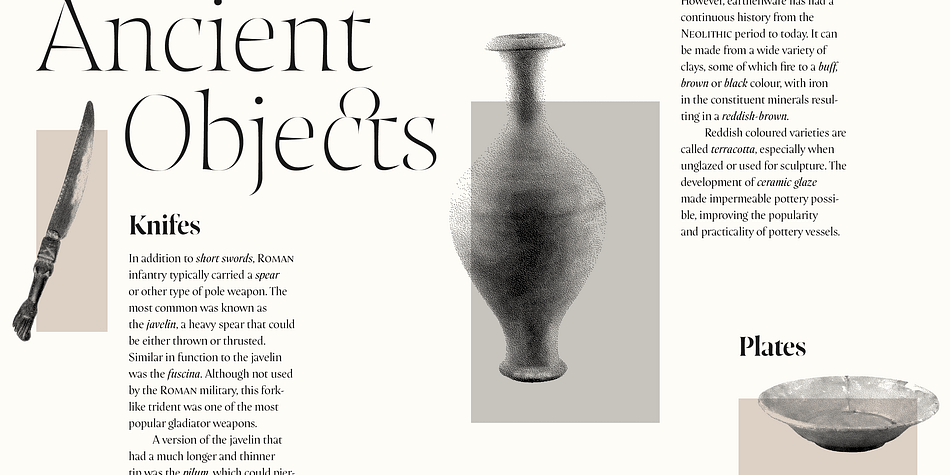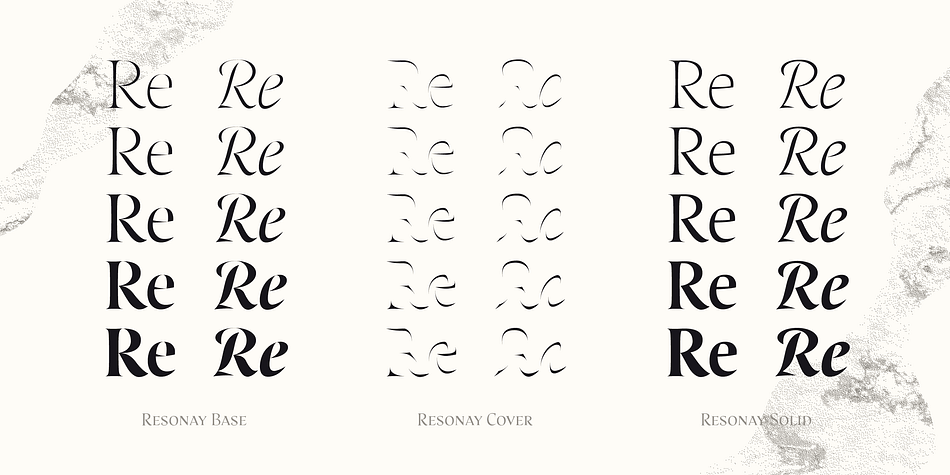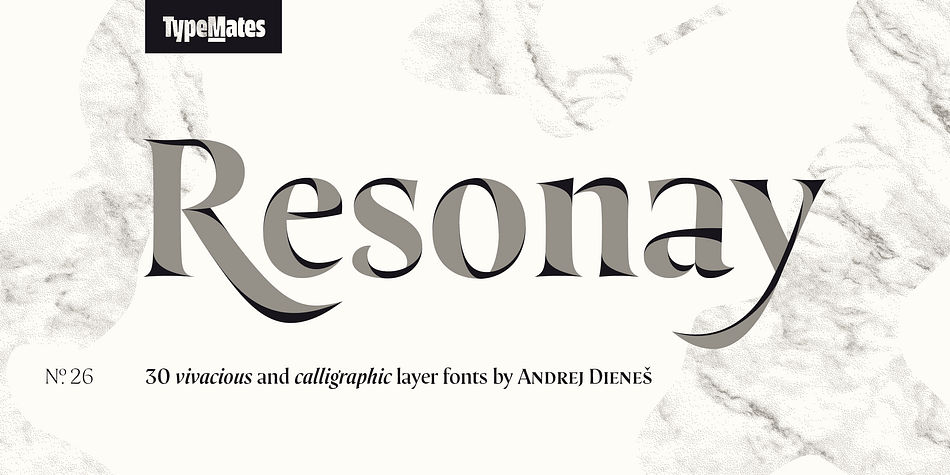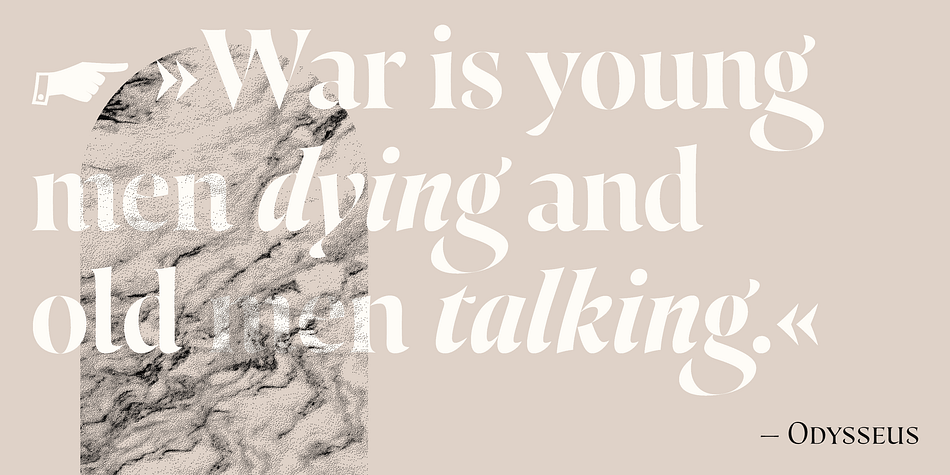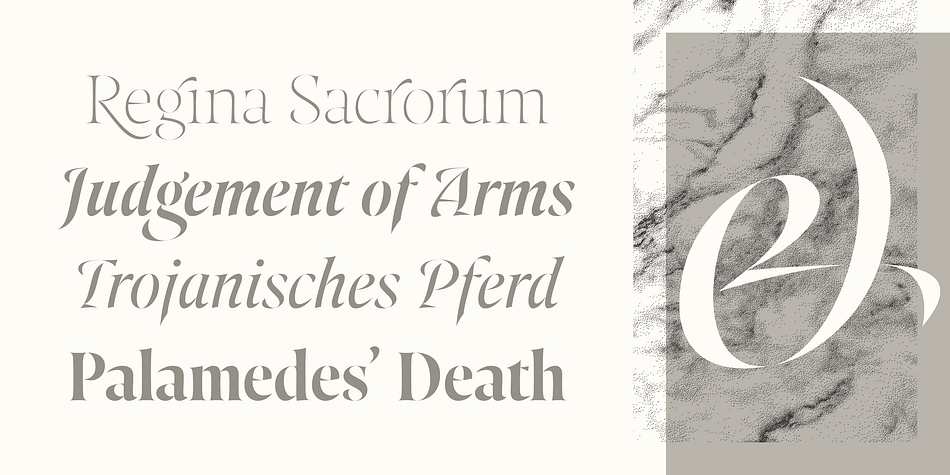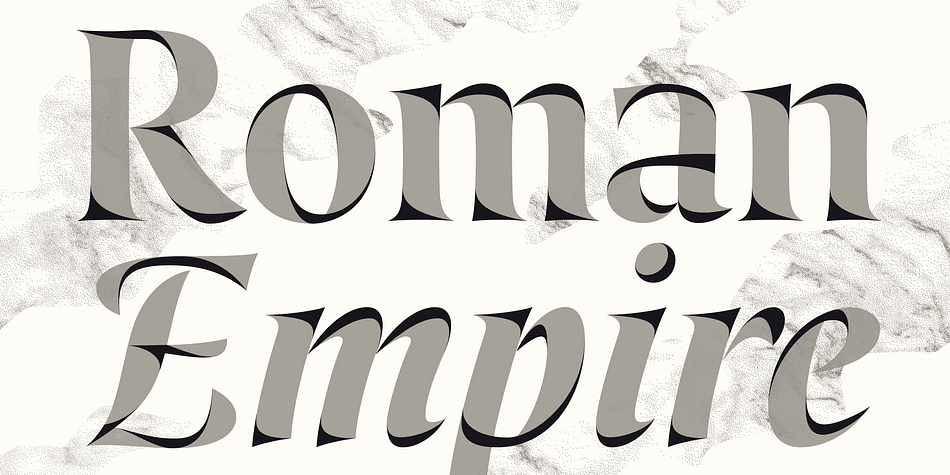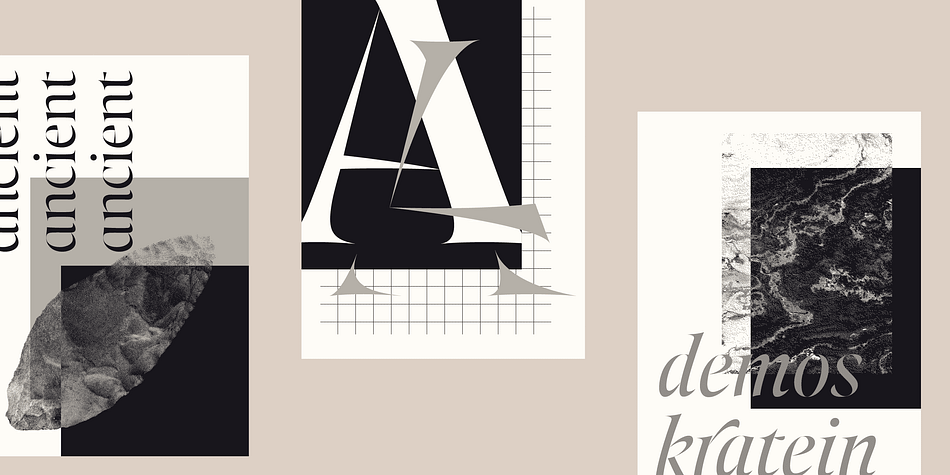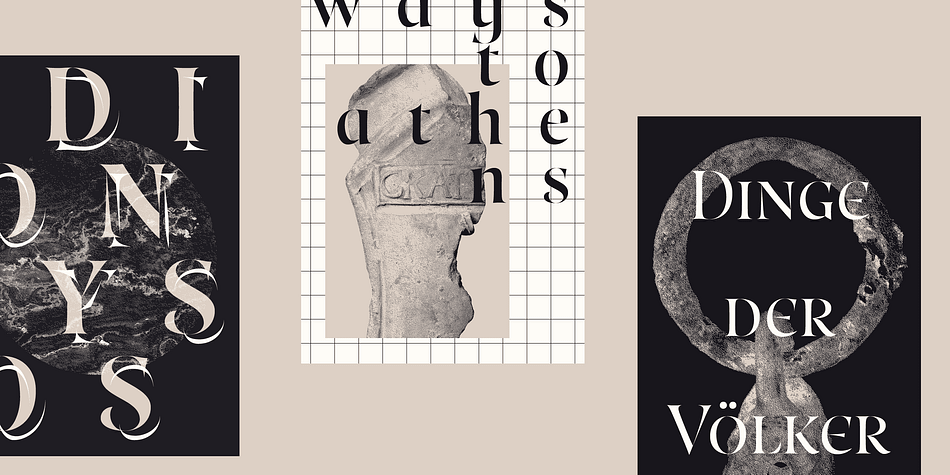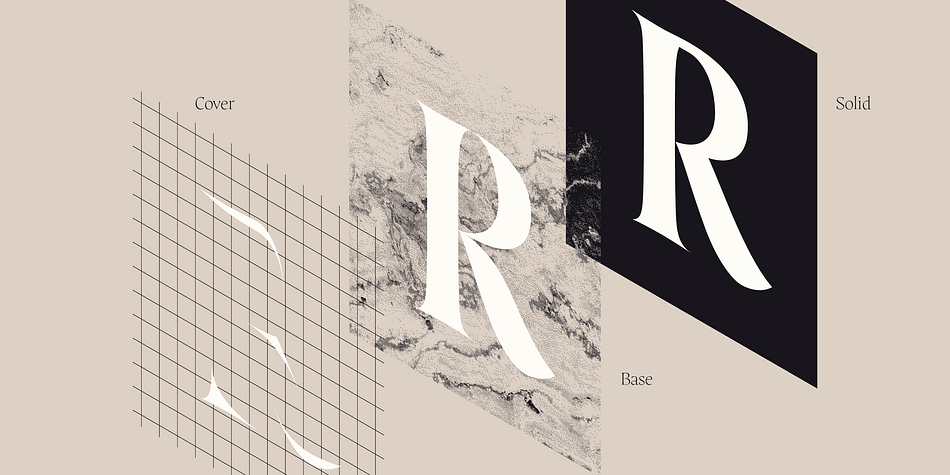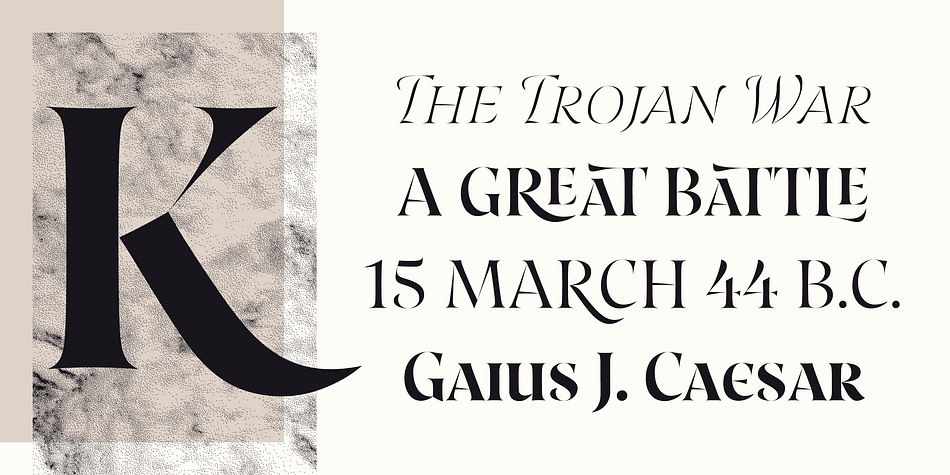
Resonay is a display serif font family. This typeface has thirty styles and was published by TypeMates.
Resonay’s a vivacious layer font that takes classical lettering somewhere new. Combining elegant details from stone carving with the flow of calligraphy, a sharp attitude with exuberant bézier curves, Resonay is suitable for logotypes and refined display setting. Enriched with swashes, titling alternates and a broad range of decorative ligatures, Resonay brings expression and poetry to headlines.
Attentive to setting titles in a classical fashion, Resonay has wide small caps and a set of nested capitals. For other typefaces, 200 lowercase ligatures may be enough, but with handsome initial and final swashes for its upper and lowercase letters, Resonay goes further. The uppercase italic is swashy by default.
Resonay is a layer font. Start with Resonay Base and overlay Resonay Cover to play with colour, opacity and gradients. Alternatively, for smaller sizes or a robust texture, Resonay Solid combines the two layers into one. As all three layers are perfectly synchronised, you can combine and recombine them to emphasise different facets of your text.
A fully-featured display font, Resonay has all the OpenType features you need for ambitious typography. As well as a variety of figure styles, there are small caps and capitals-to-small-caps features. Like all TypeMates fonts, you can be certain that Resonay has a helpful set of symbols and broad Latin language support.
With over 2,000 glyphs in each of its five weights — thin to black —and calligraphic italics, Resonay can create stunning lettering with ease.